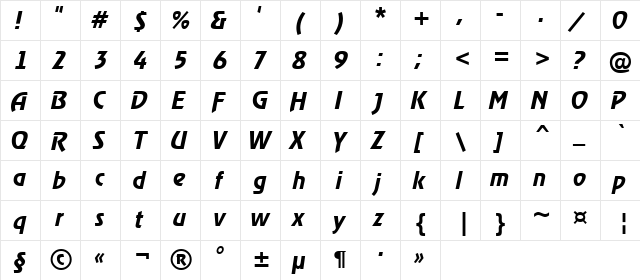
a_RewinderDemi Italic
Design Context for a_RewinderDemi Typeface
a_RewinderDemi takes a measured approach to typography — its balanced proportions and neutral character make it a reliable workhorse for both digital and print work. The dynamic lean of this cut emphasises speed and emphasis in any layout.